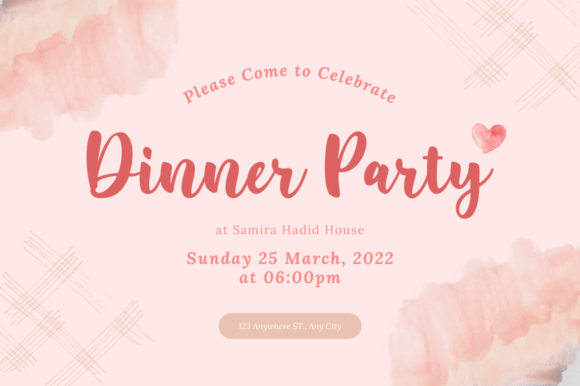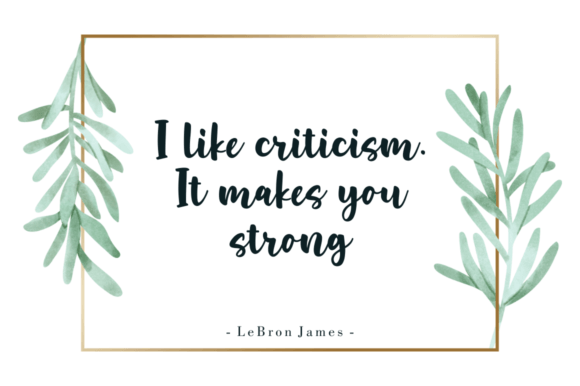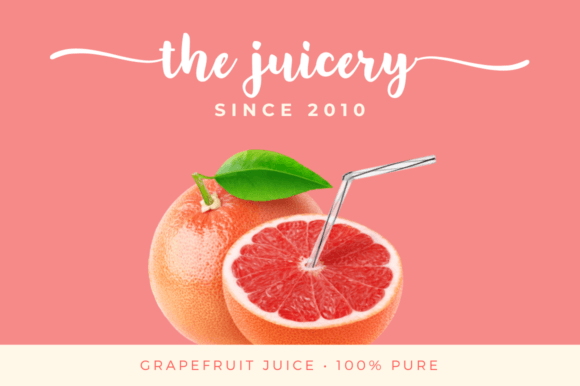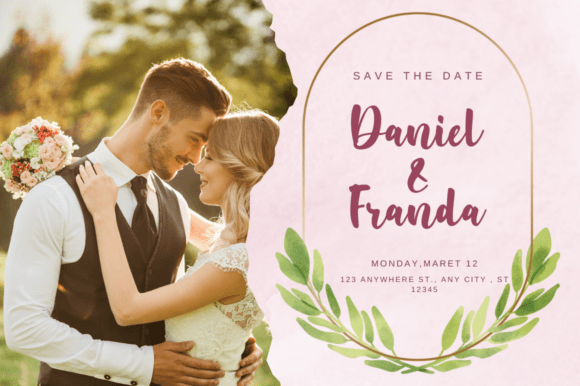
Miya Mine stands out as a sleek and uniquely crafted handwritten font, infused with a touch of creativity. Tailored for versatility, it proves to be an excellent choice for a diverse range of projects, including product packaging, branding initiatives, magazine covers, social media posts, wedding materials, or simply to express words over a background.
The font’s sleek design lends a modern and sophisticated aesthetic, making it particularly well-suited for product packaging and branding projects. Whether you’re creating labels, tags, or designing the visual identity for a product, Miya Mine adds a touch of elegance that can elevate the overall look and feel.
In the realm of magazine covers, Miya Mine brings a contemporary and refreshing look. Its unique handwritten style can be employed to create eye-catching headlines or taglines, contributing to a distinctive and modern design.
For social media, Miya Mine offers a trendy and engaging option for posts and graphics. Whether it’s for promotional content, quotes, or announcements, the font’s creativity and sleekness can help your social media presence stand out.
Wedding materials benefit from the beautiful and refreshing look that Miya Mine provides. From invitations to place cards, the font adds a touch of elegance and uniqueness to convey the special atmosphere of a wedding celebration.
The font’s PUA encoding is a valuable feature, ensuring easy access to all glyphs and swashes. This allows for greater flexibility and customization in your designs, allowing you to tailor the font to suit the specific requirements of your project.
In summary, Miya Mine is more than just a font; it’s a design tool crafted for those seeking a beautiful and refreshing look. Whether you’re working on product packaging, branding, magazines, social media, weddings, or any project that requires a touch of modern creativity, Miya Mine is poised to meet your needs with its sleek and unique handwritten style.